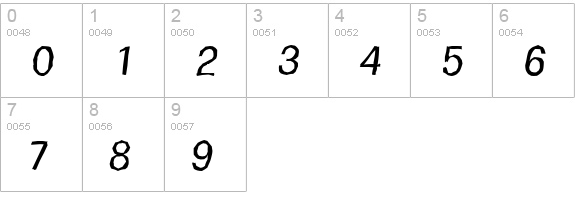
FormulaAntique-Italic Font Details
FormulaAntique-Italic is a distinctive, italic variant in the FormulaAntique typeface family \xE2\x80\x94 well suited to design and typography projects.
FormulaAntique-Italic is a classic and elegant font that exudes sophistication and charm. With its sleek and timeless design, this font is perfect for adding a touch of refinement to any project. The italic style adds a sense of grace and fluidity, making it ideal for use in invitations, formal documents, or stylish branding. What makes FormulaAntique-Italic even more appealing is that it is available for free download at FontsMarket.com. This means you can enhance your designs with this exquisite font without any cost. Impress your audience with the beauty and versatility of FormulaAntique-Italic, and elevate your projects to new heights of elegance and professionalism.